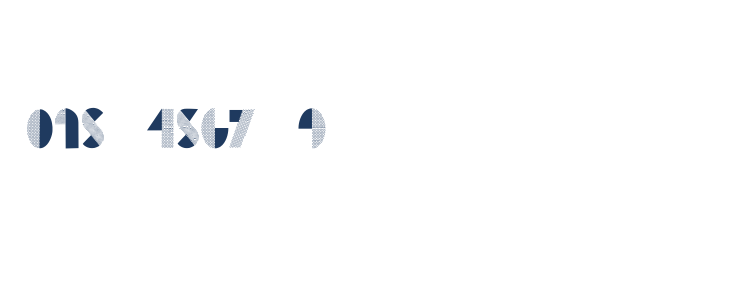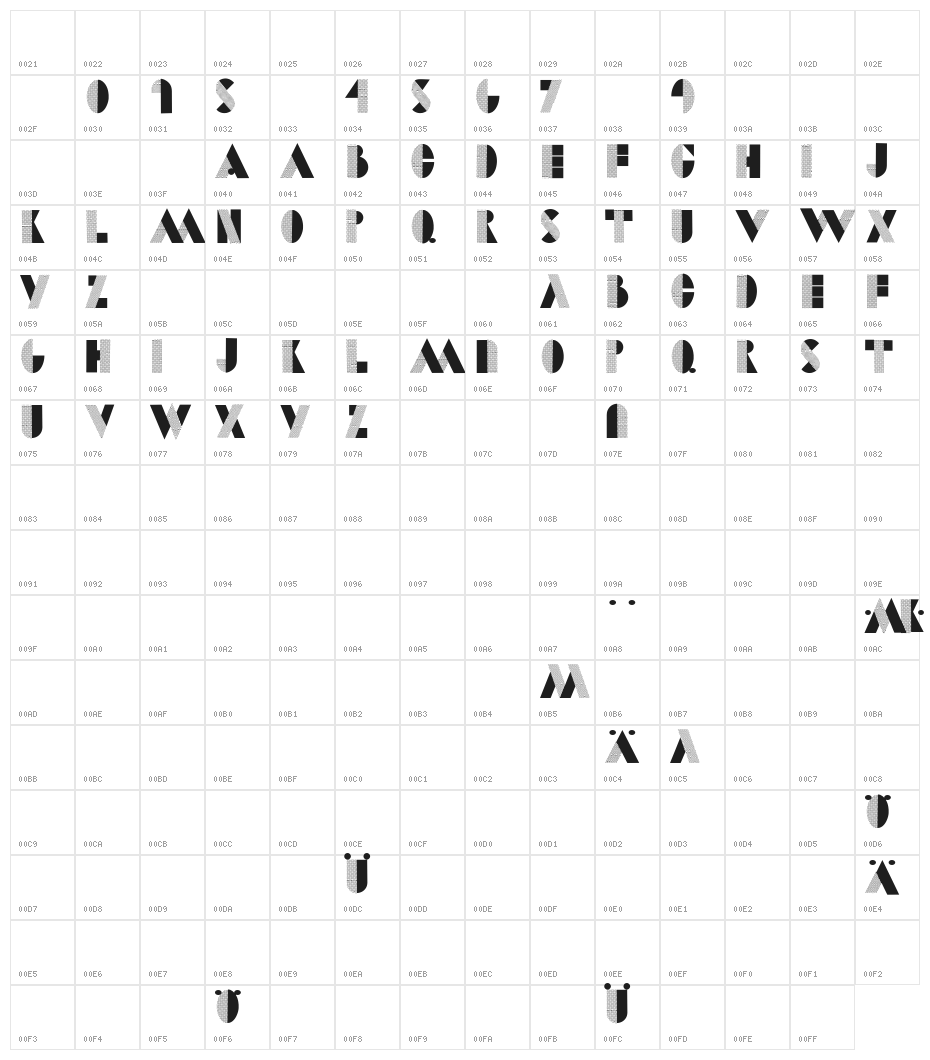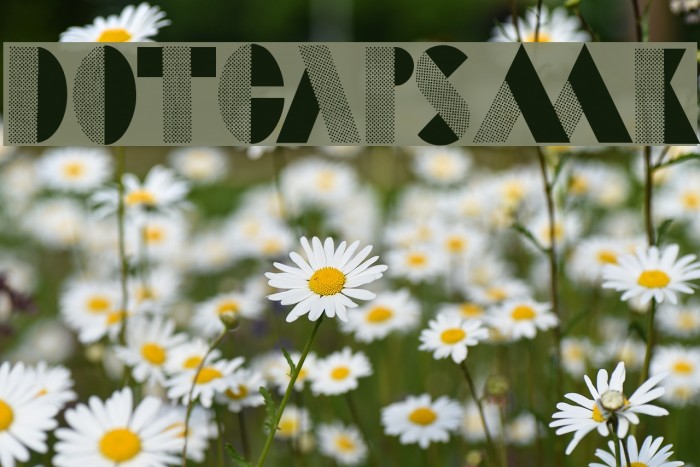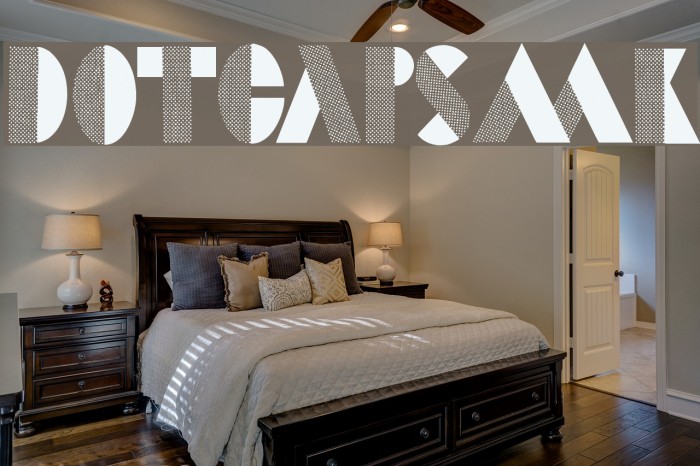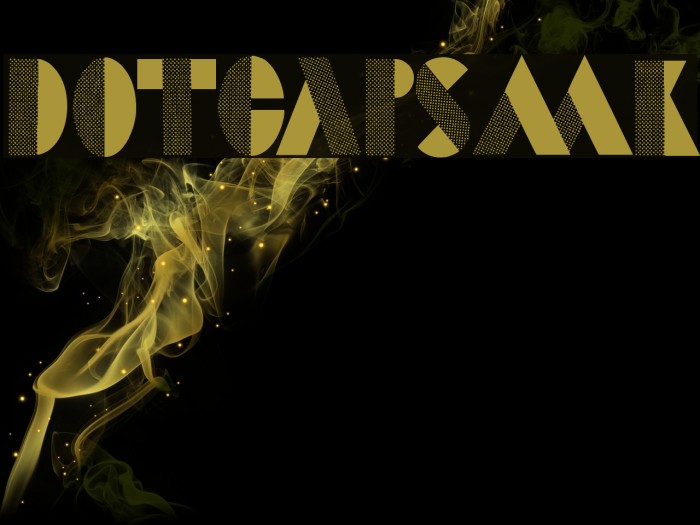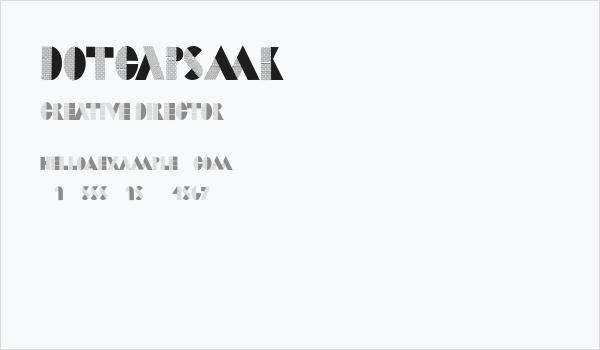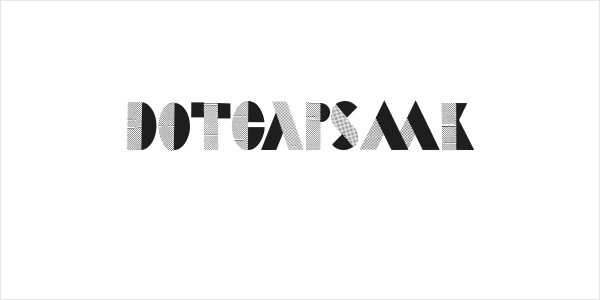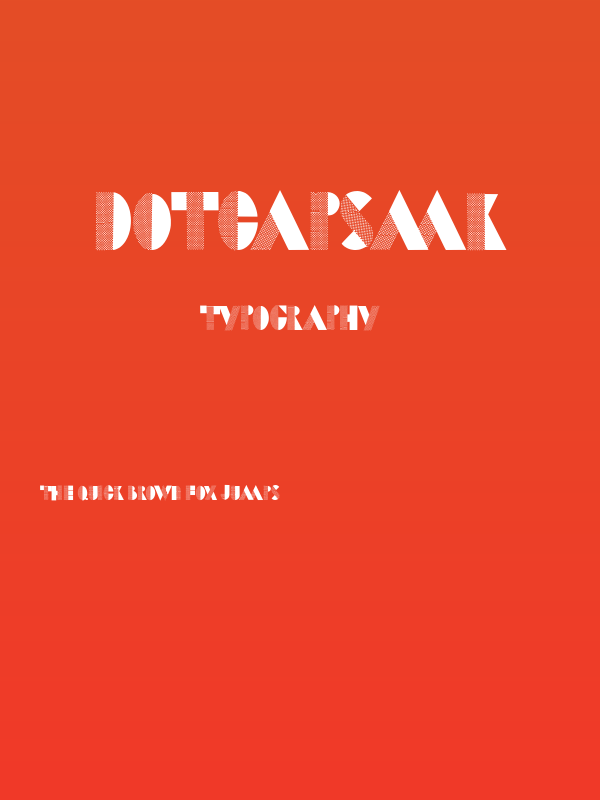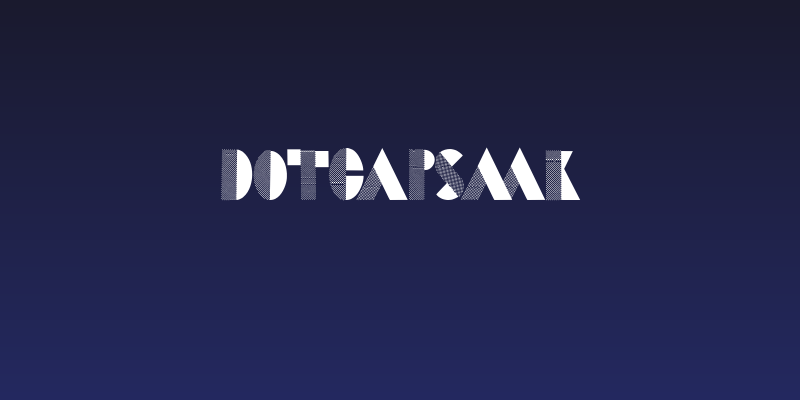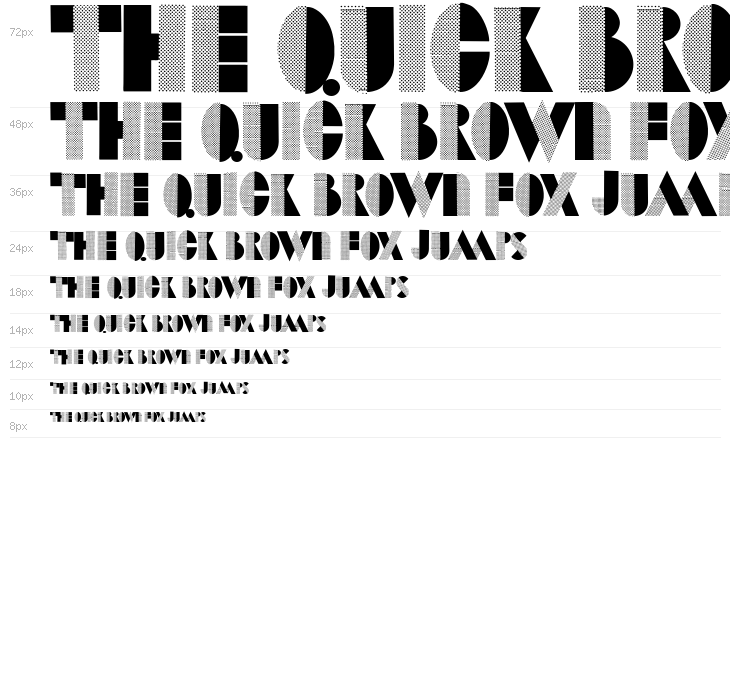
DotCapsMK Font
DotCapsMK Description
This font features a bold, geometric design with a distinct halftone pattern filling each character. The uppercase and lowercase letters maintain a consistent style, emphasizing sharp angles and clean lines. The numbers and special characters follow the same aesthetic, creating a cohesive look. The use of negative space and dotted textures adds a unique visual interest, making it stand out as a decorative typeface. Its modern and artistic appearance is suitable for projects that require a striking visual impact.
| Proposed Projects | Ideal for posters, album covers, branding, and editorial design where a bold statement is needed. |